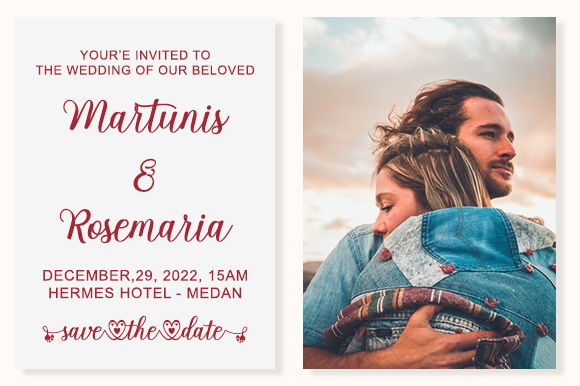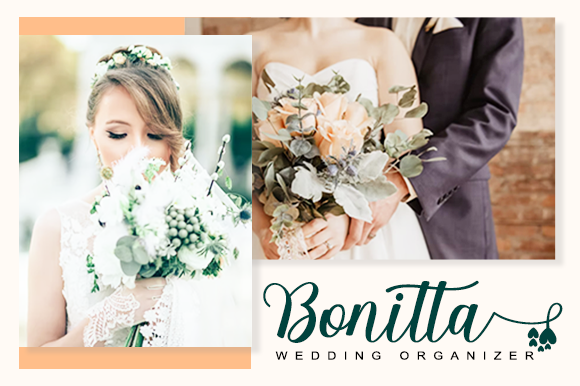
Hope Dream Script Font
db-ku.com - Script & Handwritten -- Hope Dream Script feels equally charming and elegant. This font is PUA encoded which means you can access all of the glyphs and swashes with ease!